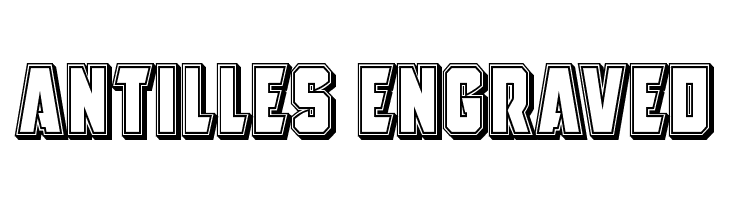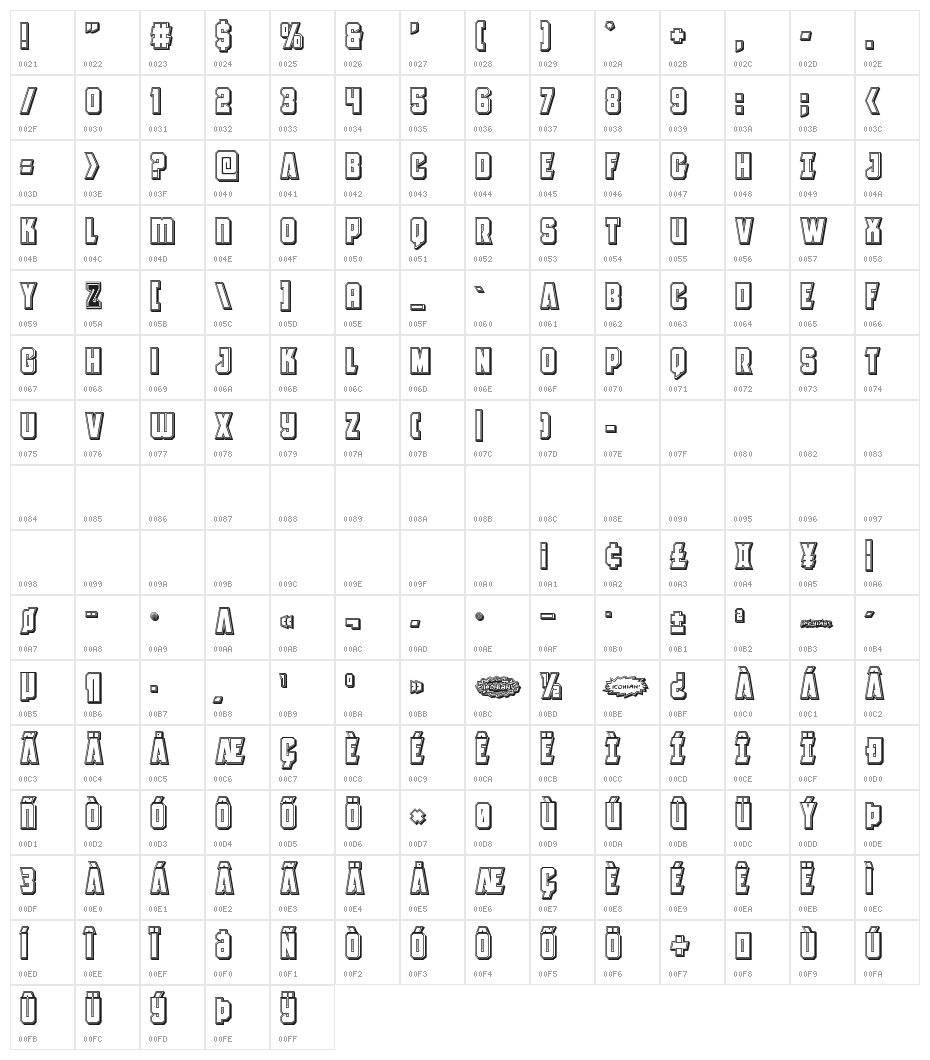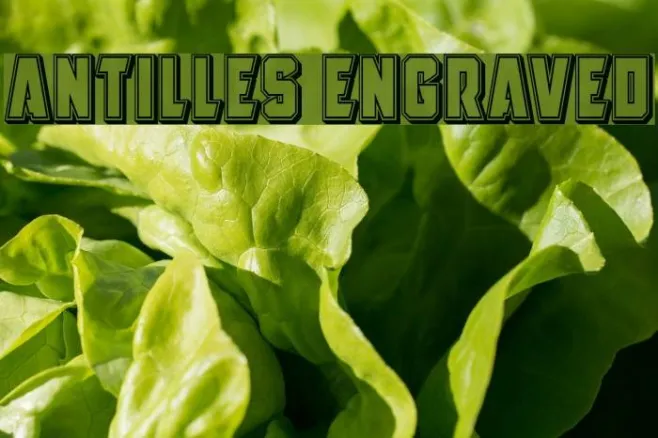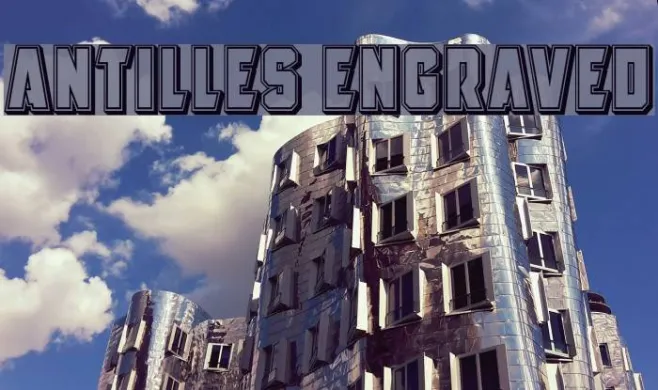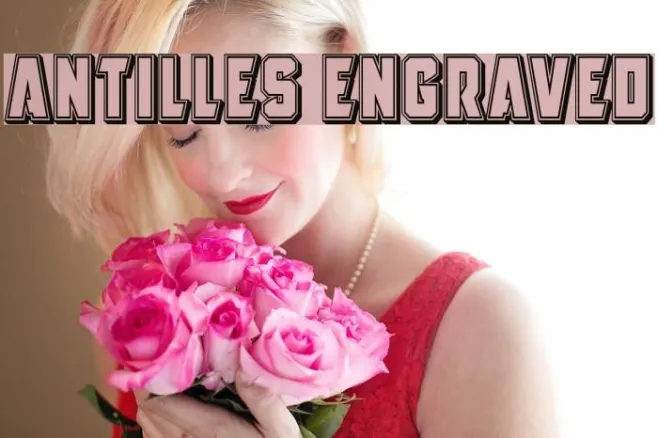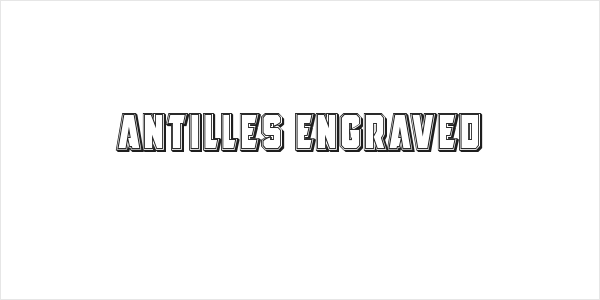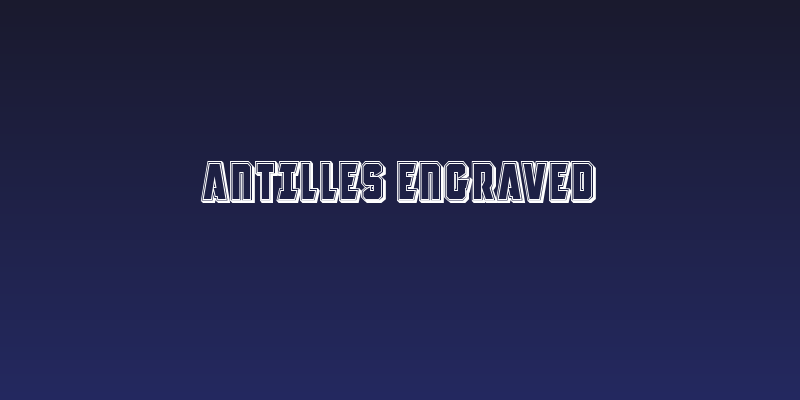
Antilles Engraved Font
Antilles Engraved Description
This font features a bold, three-dimensional style with a strong, engraved appearance. The characters are outlined with a thick black border, giving them a striking and impactful look. The interior of each letter is filled with a solid color, enhancing the engraved effect. The font maintains a consistent height and width across all characters, providing a uniform and cohesive appearance. The angular design and sharp edges contribute to its modern and dynamic feel. This font is particularly eye-catching and is designed to stand out in any context.